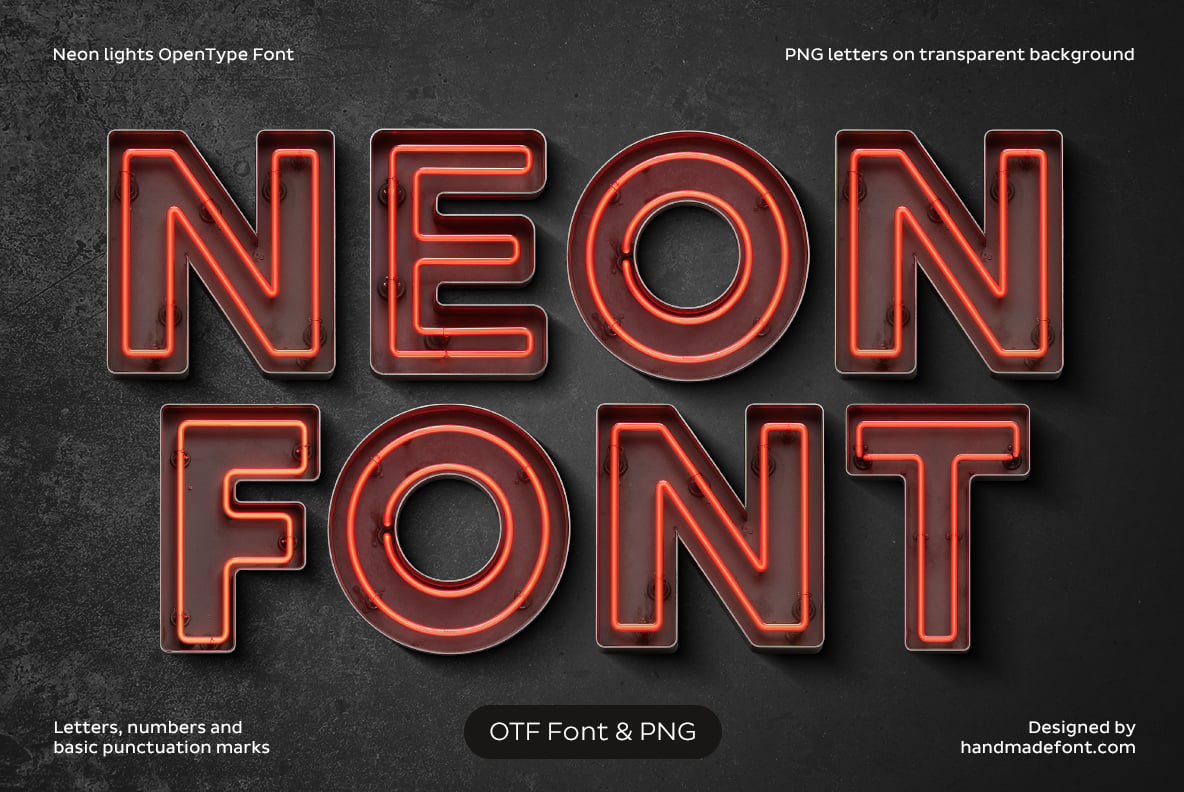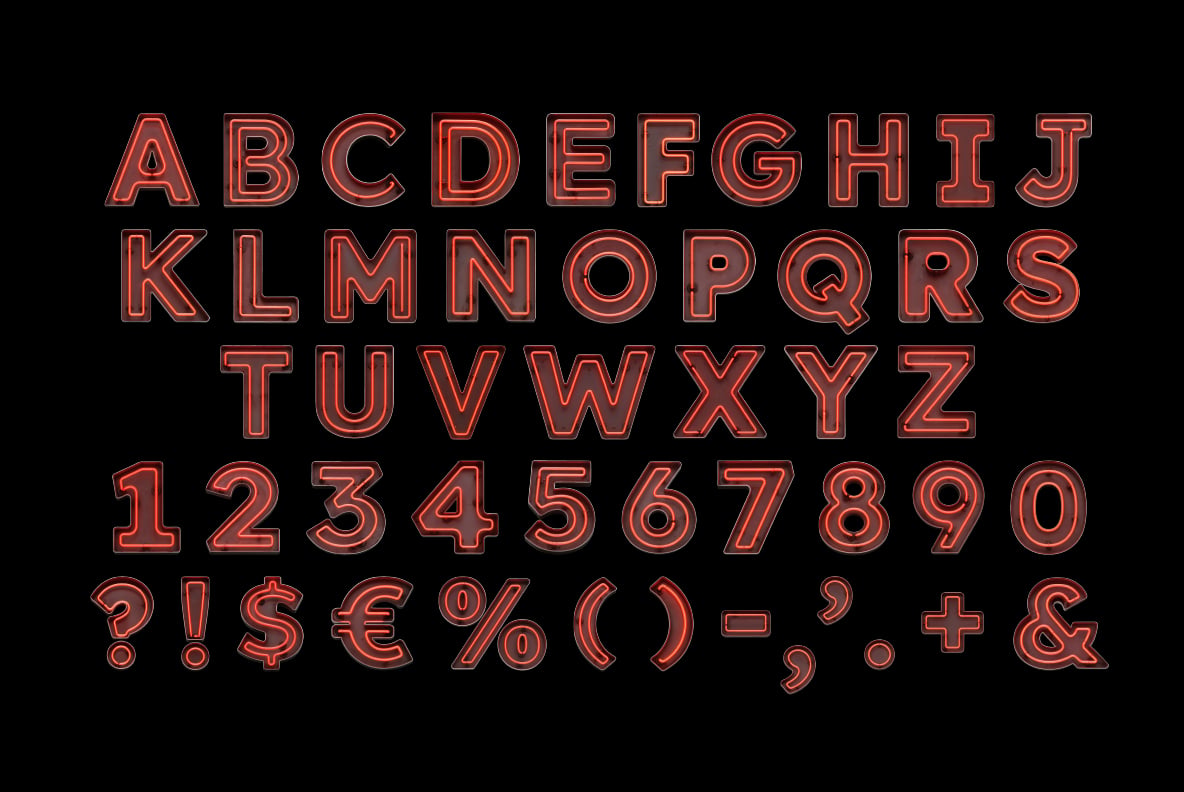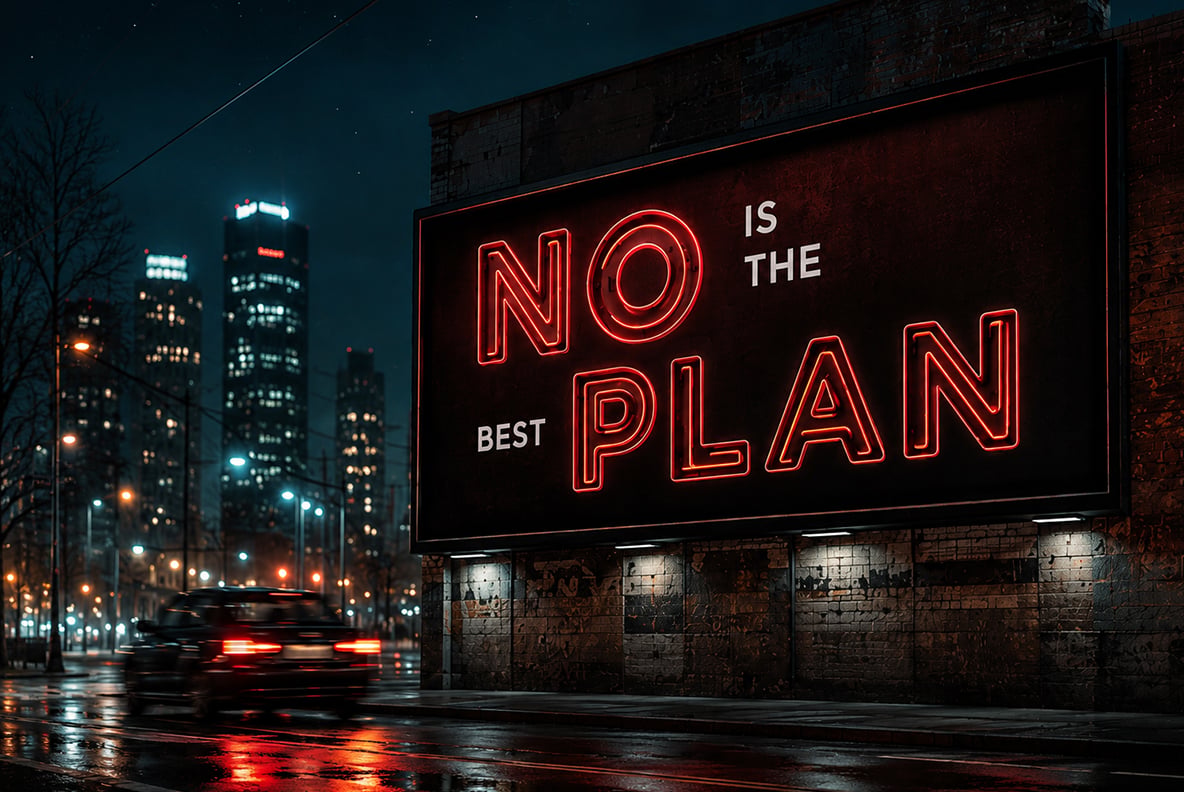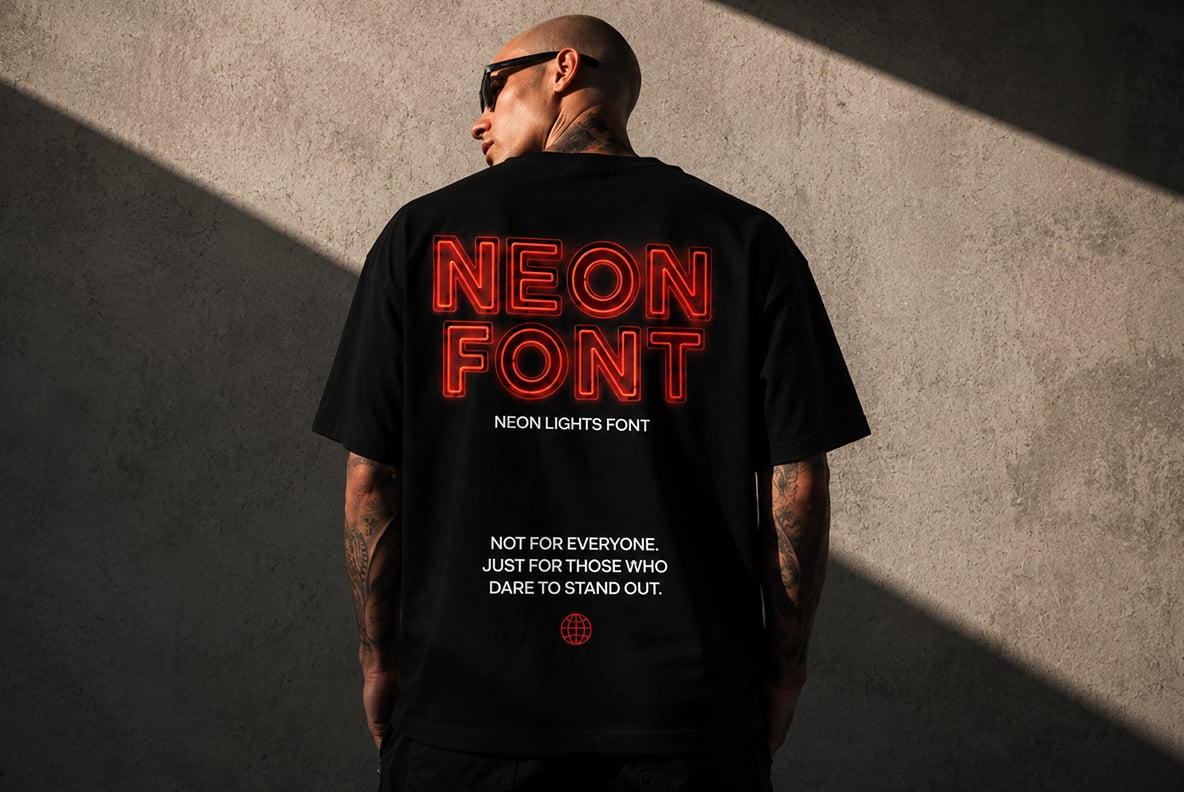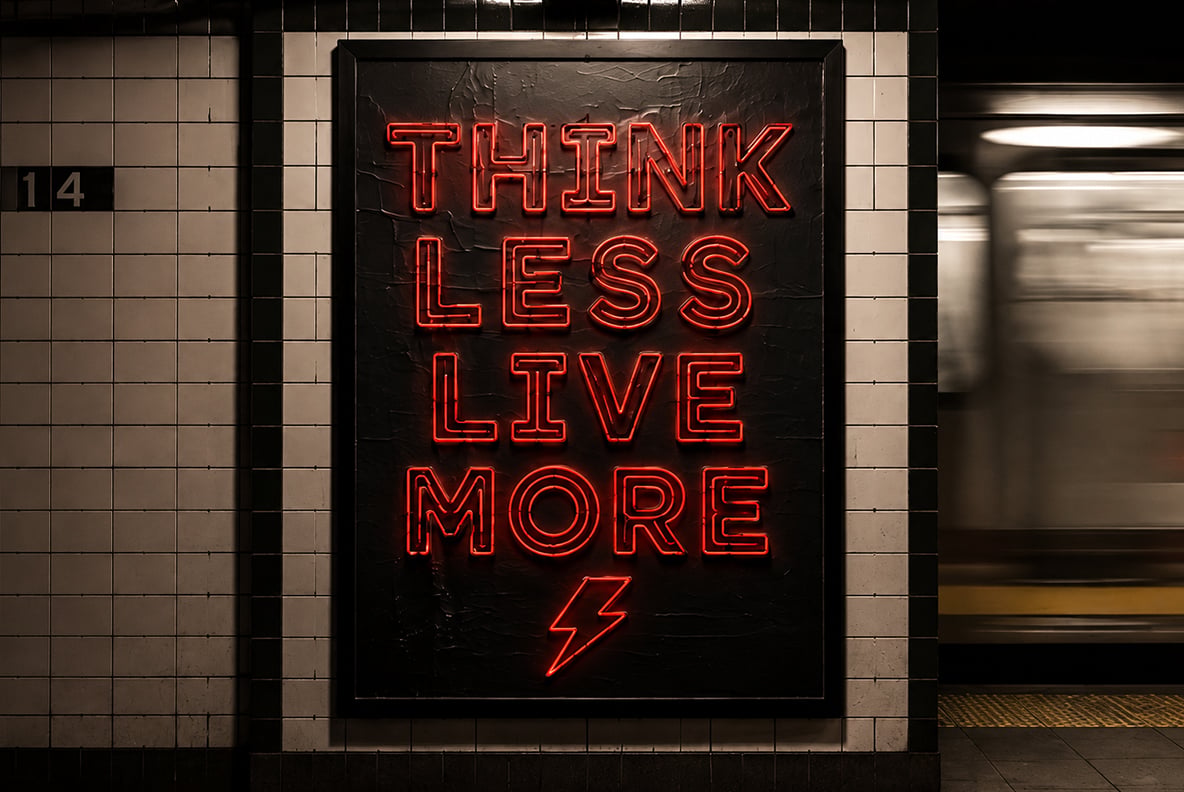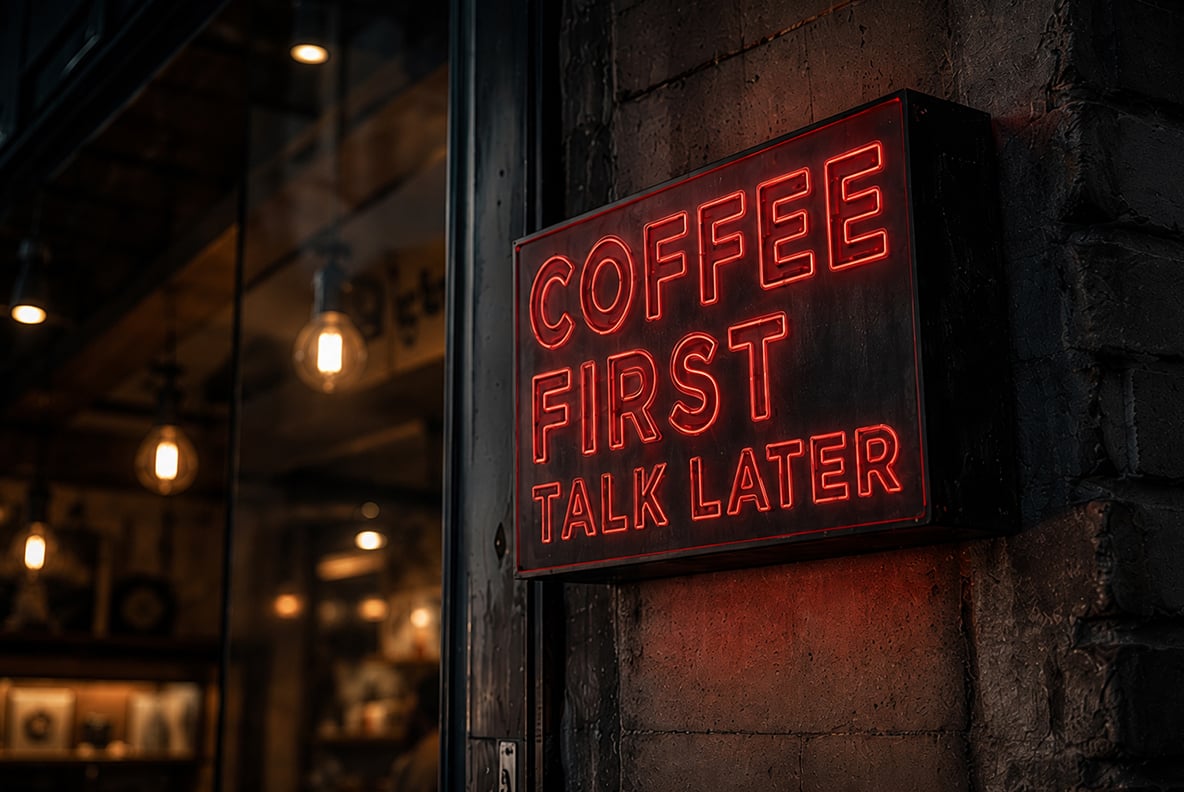
Neon Lights Font
Neon Lights Font is a bold and eye-catching typeface inspired by classic vintage neon signage, glowing city streets, retro diners, and urban nightlife. Each character is carefully crafted to recreate the authentic appearance of illuminated neon tubes mounted on metal backing, complete with realistic depth, lighting, and industrial details.
Neon Lights Font instantly adds atmosphere, energy, and a striking retro-futuristic glow to any design.